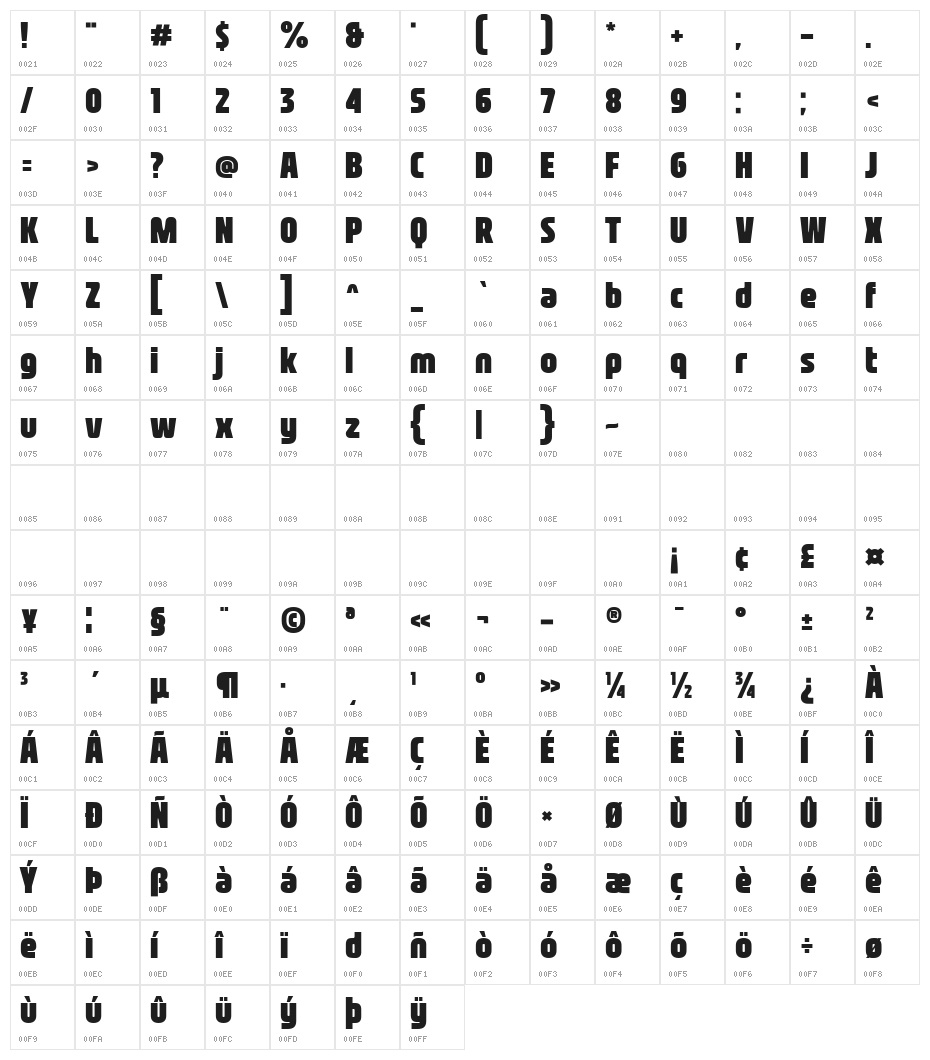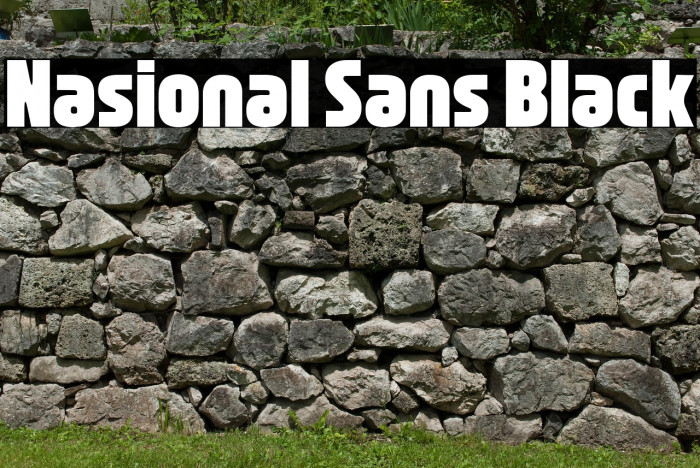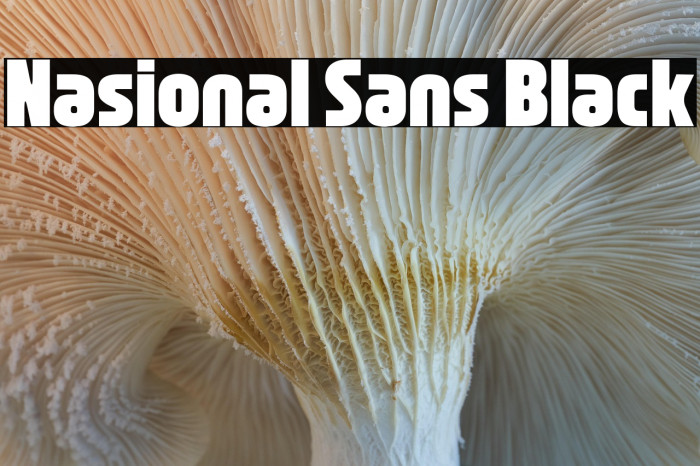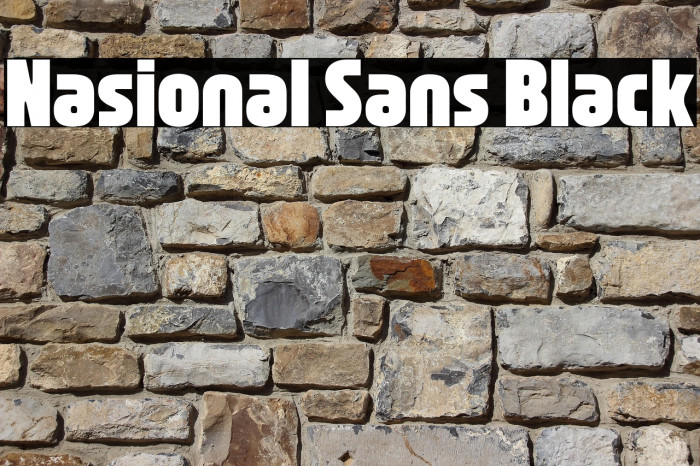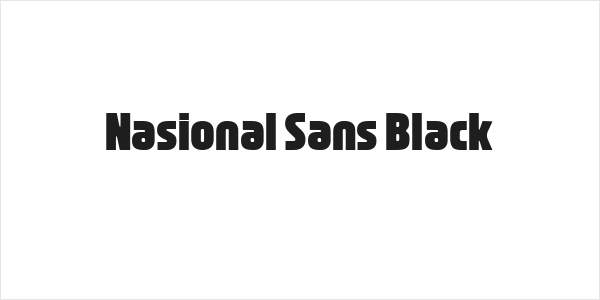
Nasional Sans Black Font
Nasional Sans Black Description
This font is a bold, sans-serif typeface characterized by its thick, uniform strokes and strong presence. The uppercase and lowercase letters are designed with a consistent weight, providing a cohesive look across all characters. The numbers and special characters maintain the same boldness, ensuring readability and impact. The overall design is clean and modern, making it suitable for attention-grabbing headlines and branding materials. Its geometric shapes and solid structure convey a sense of stability and confidence.
| Proposed Projects | Ideal for branding, advertising, headlines, and posters where a strong visual impact is needed. |